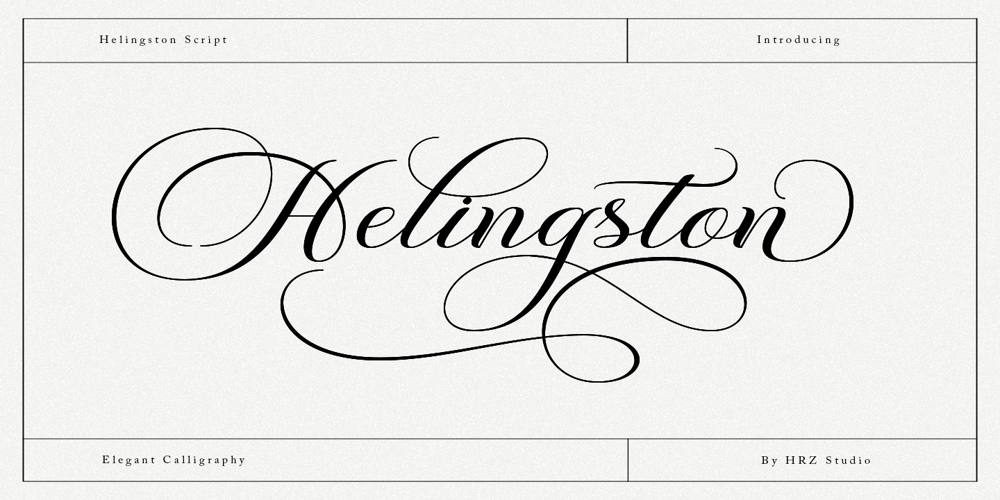
Helingston Script Font Family was designed by Has Rizal and published by Hrz Studio. Helingston Script contains 1 styles and family package options. Helingston is a Fancy calligraphic font, Helingston is created with a copper plate stylus and features opentype with pua encode, Helingston is a Fancy Calligraphic including alternatives, style sets, ligatures, and swashes, Each glyph lowercase has a stylized style, Swiss is perfect for branding, invitations wedding and cards or quotes.